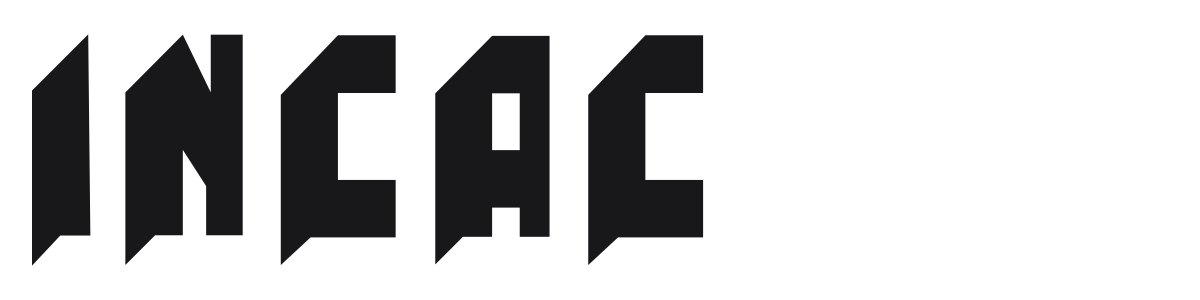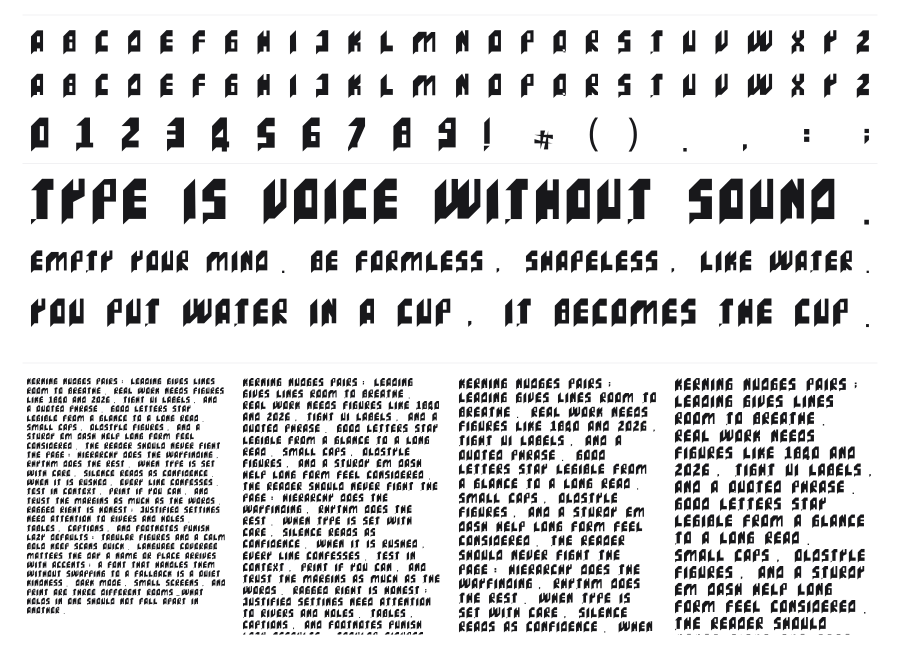
Incac
Incac is a heavy gothic display font built on sharp angular geometry and bold, flat-edged strokes. The chiseled terminal cuts give it a raw, carved quality that sits somewhere between medieval blackletter and ancient stone inscription. Strong choice for metal band logos, gaming titles, or any headline that needs authority and edge.